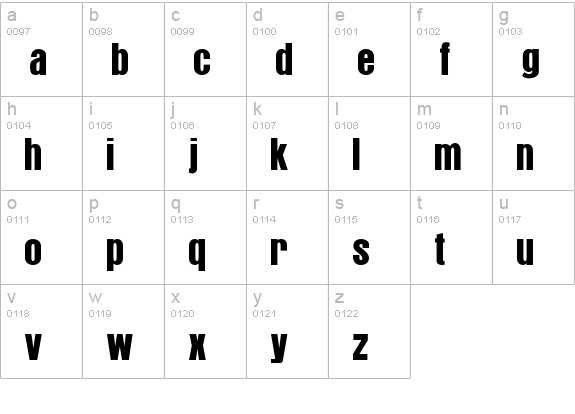
Arroyo Font Details
Arroyo font is a stunning display typeface that exudes elegance and sophistication. With its sleek lines and contemporary feel, Arroyo is perfect for adding a touch of modernity to any design project. Whether you're creating a logo, poster, or website, Arroyo's unique character will make your text stand out. The best part? Arroyo font is completely free to download at FontsMarket.com. This means that you can enhance your designs with this beautiful typeface without having to worry about any additional costs. So why wait? Download Arroyo font today and elevate your design game with this exquisite and versatile typeface.